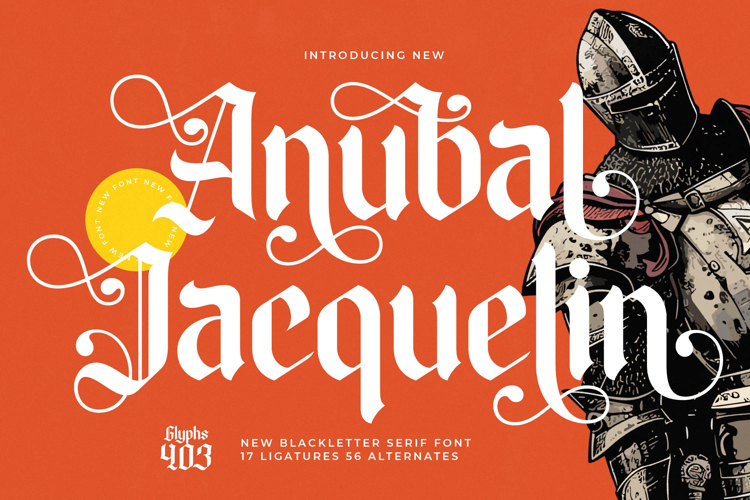
Anubal Jacquelin - Blackletter Serif Font
Unleash a timeless elegance and commanding presence with Font Anubal Jacquelin - Blackletter Serif Font Blackletter. This exceptional typeface masterfully blends the rich history of traditional Blackletter with a sophisticated, modern aesthetic. Its unique character forms and high-contrast strokes create an instantly recognizable and deeply impactful visual identity, making it perfect for projects demanding both gravitas and artistic flair.
Experience unparalleled design flexibility, allowing you to craft truly distinctive visual narratives. Font Anubal Jacquelin - Blackletter Serif Font Blackletter offers a wealth of design possibilities, from bold headlines to elegant subtext. The intricate interplay of sharp serifs and decorative swashes lends itself to creating designs that are both authoritative and exquisitely detailed, reflecting superior craftsmanship and attention to detail.
Elevate your global presence with a font designed for universal impact. With its extensive multilingual support, Font Anubal Jacquelin - Blackletter Serif Font Blackletter adapts seamlessly across global markets, making it incredibly versatile for international projects. This ensures your message resonates powerfully, regardless of geographic boundaries, providing a consistent and premium feel worldwide.